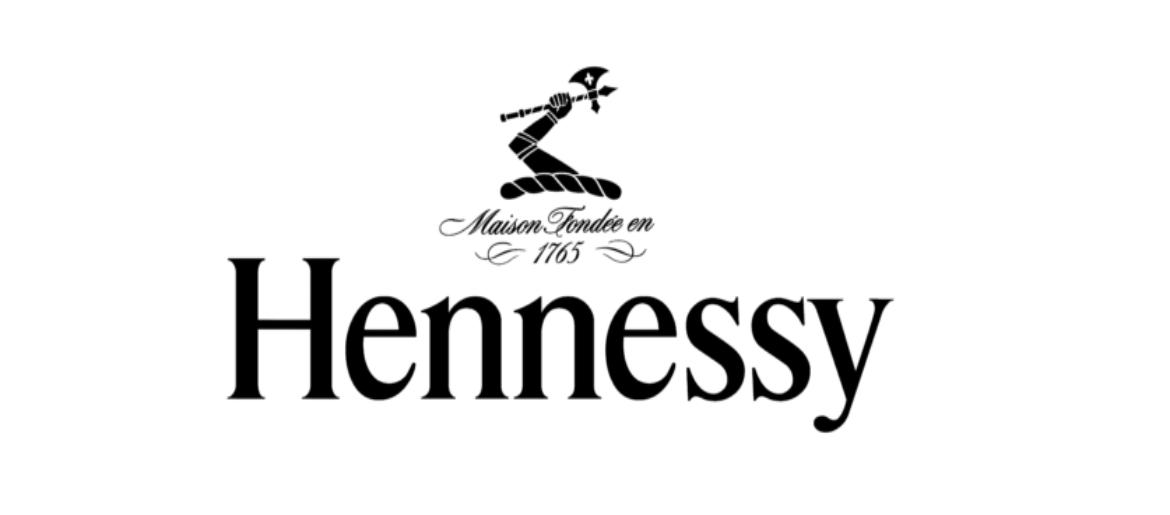
Hennessy Font
What Font is Used in the Hennessy Logo?
The Hennessy font used in the brand’s elegant logo is ITC Bodoni Seventytwo Pro Bold, a premium serif typeface known for its refined contrast and timeless luxury feel. This stylish font perfectly complements Hennessy’s image of sophistication and heritage. Since ITC Bodoni Seventytwo Pro Bold is a commercial font, it isn’t freely available—but we’ve found a free alternative font that captures a similar sense of elegance and tradition. You can check the link below to explore this option for your own creative projects inspired by the Hennessy aesthetic.
About Hennessy
Hennessy is a world-renowned cognac brand founded in Cognac, France, in 1765 by Richard Hennessy. With over 250 years of craftsmanship, Hennessy has become a global symbol of excellence and refinement. The brand’s legacy blends heritage, innovation, and artistry, making it one of the most respected names in fine spirits.